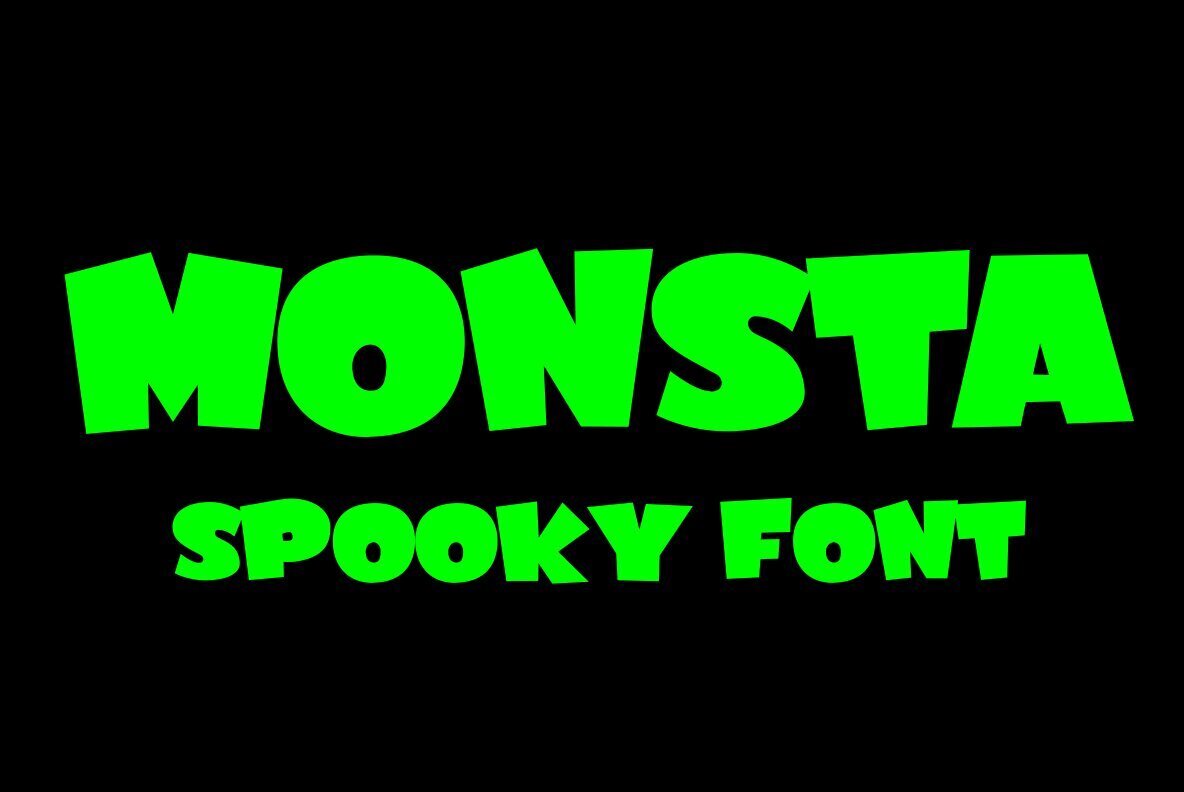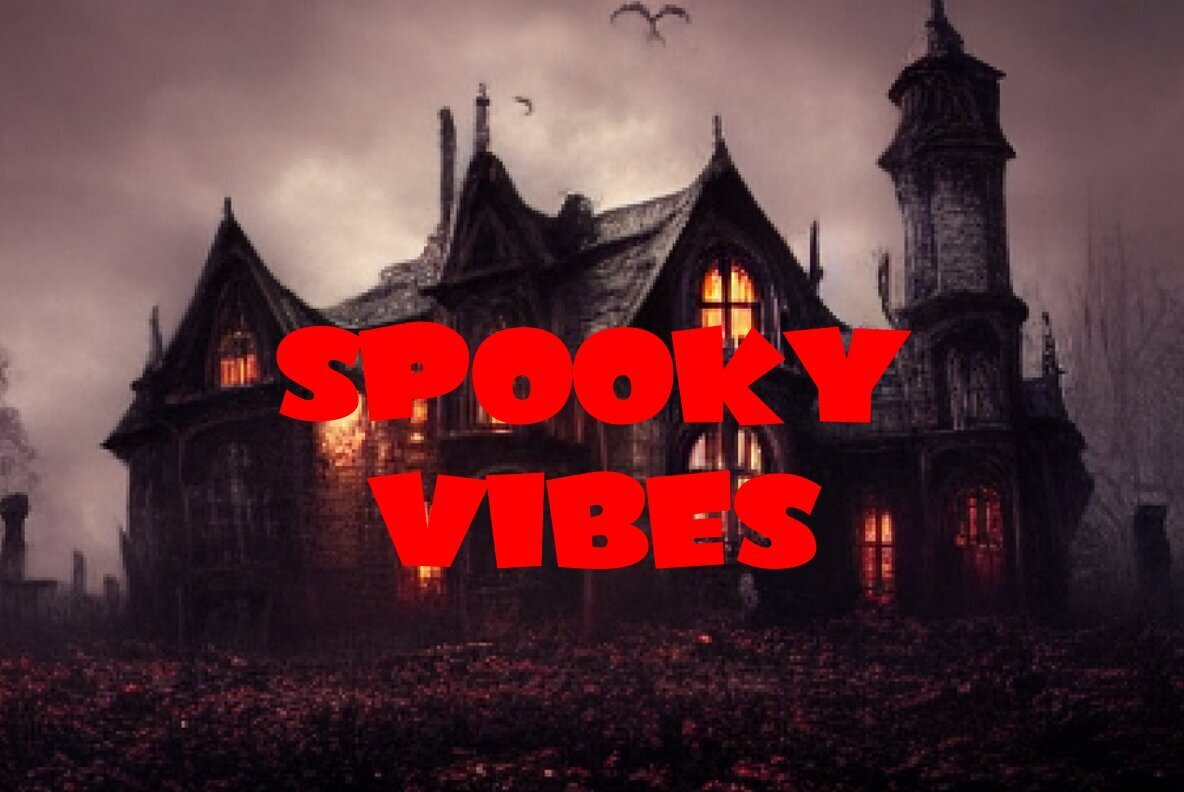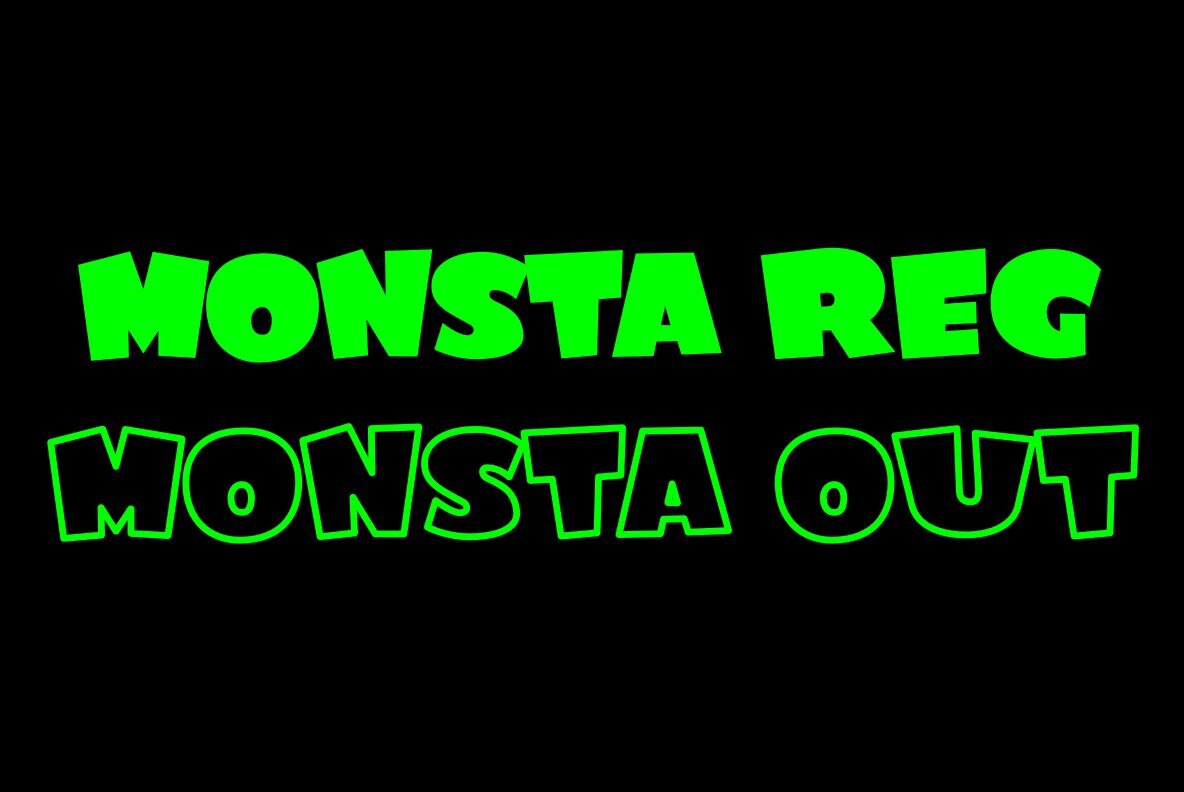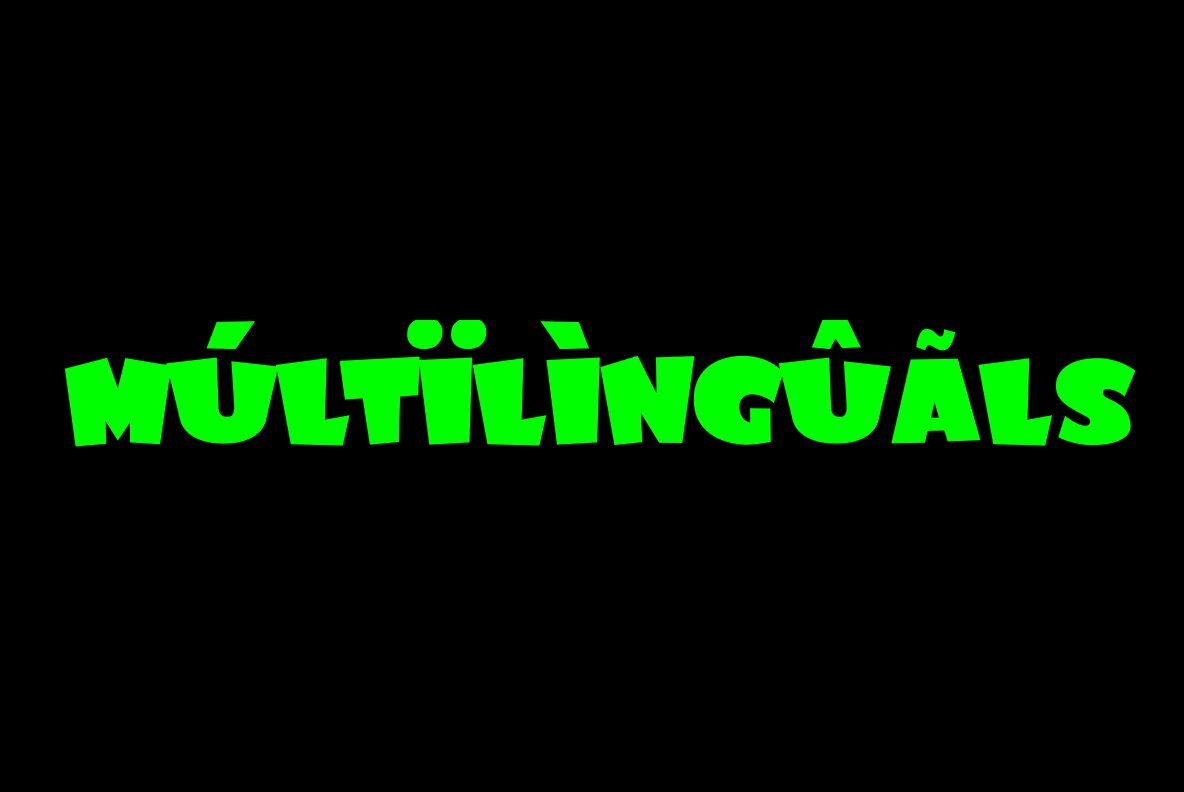
Monsta Font
Monsta Regular
Monsta Outline
Monsta stands out with its unique blend of whimsy and theatricality, offering designers a font that captures both fun and a hint of menace. Perfectly suited for graphic works, it enhances visual storytelling by adding character and intrigue to any project.Monsta: A Playful yet Intimidating Font Choice